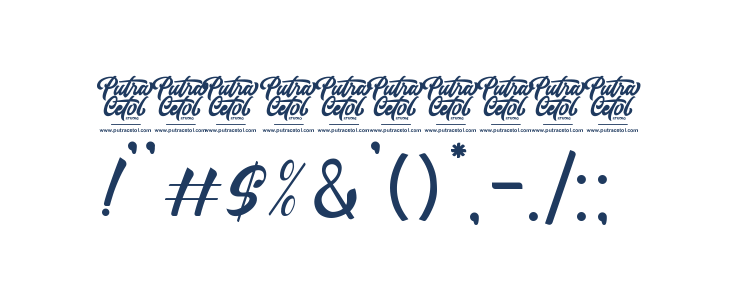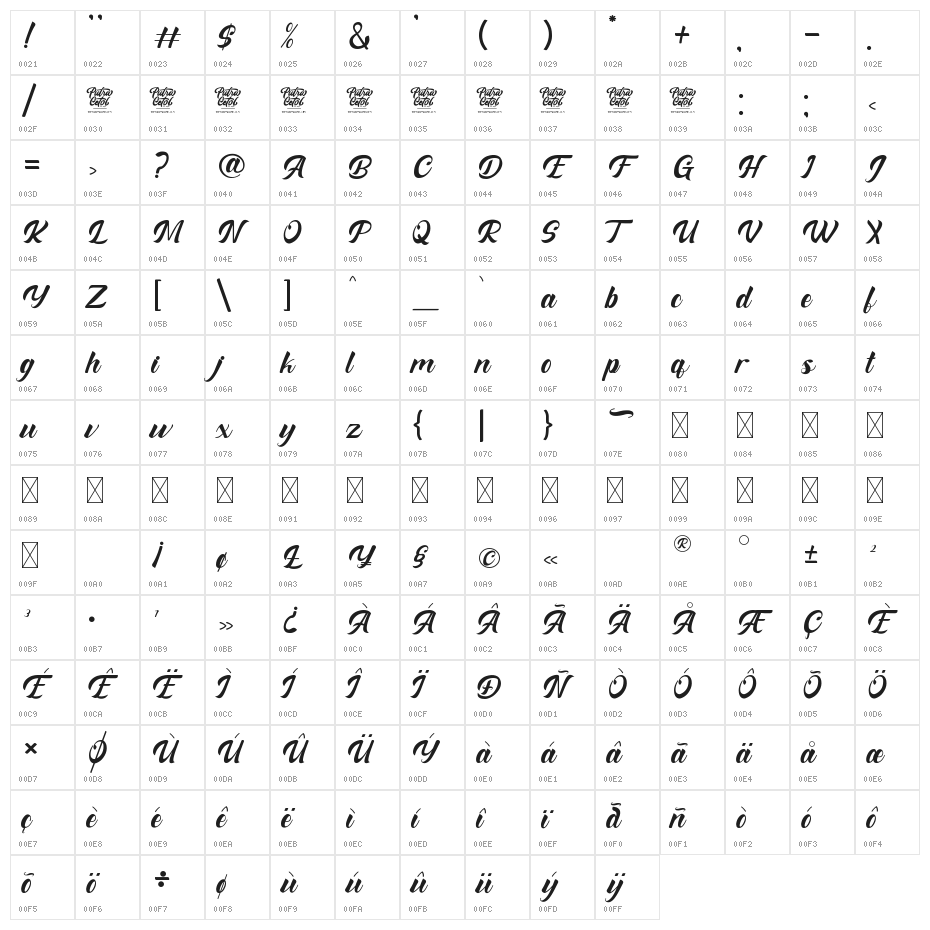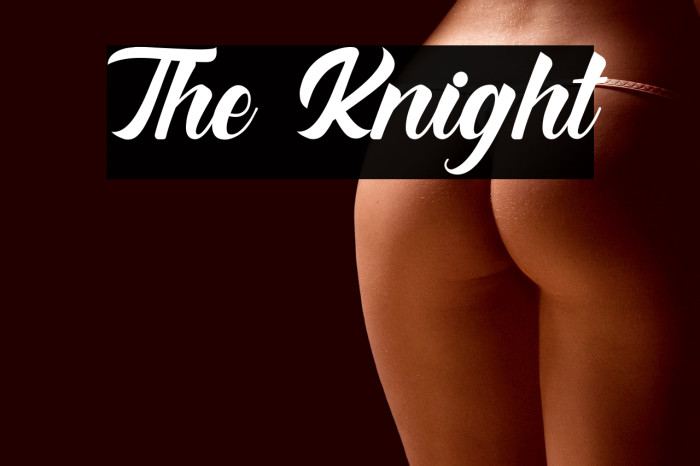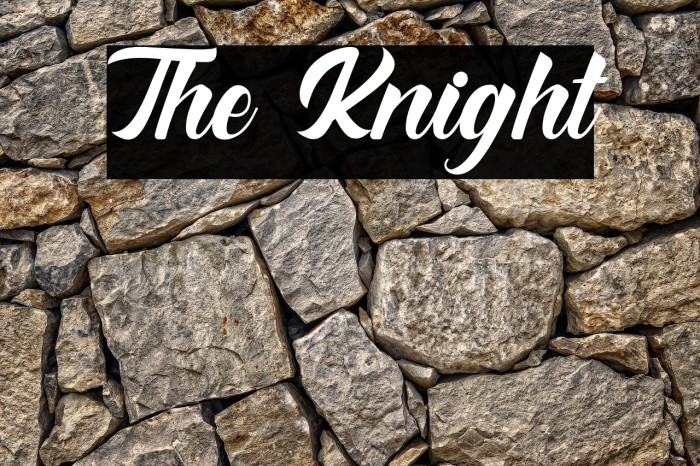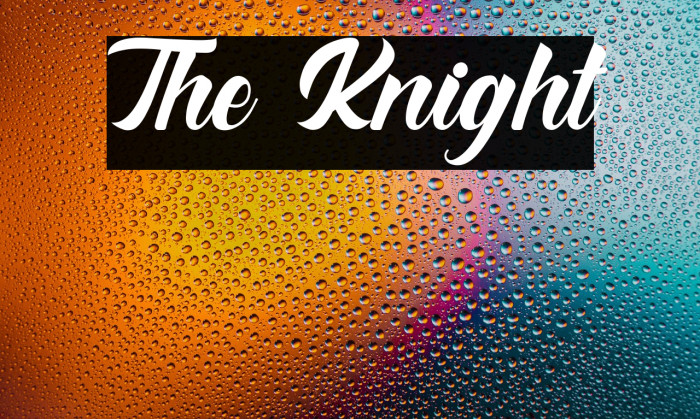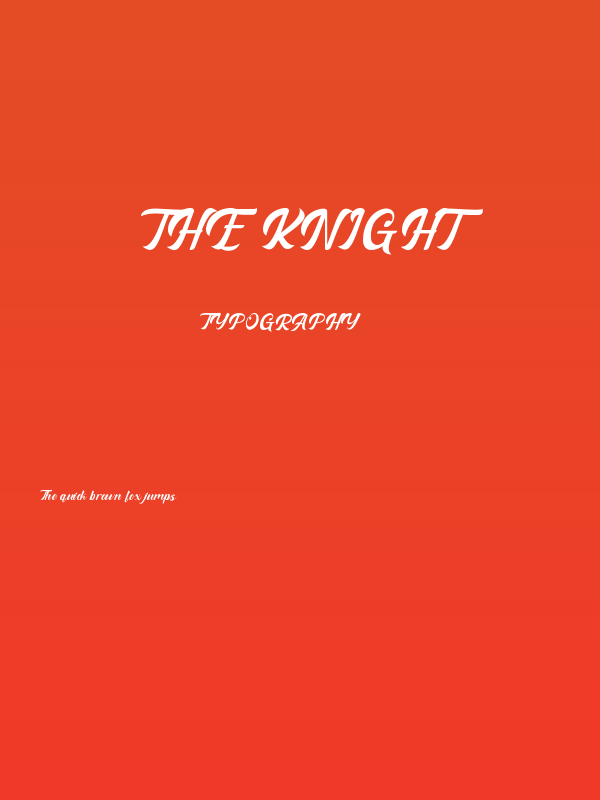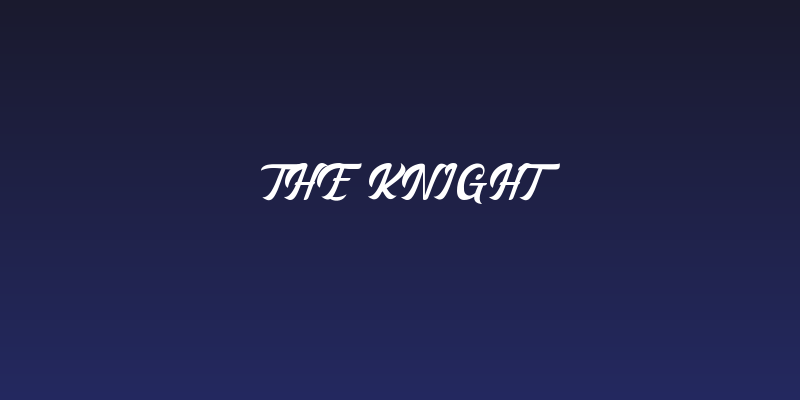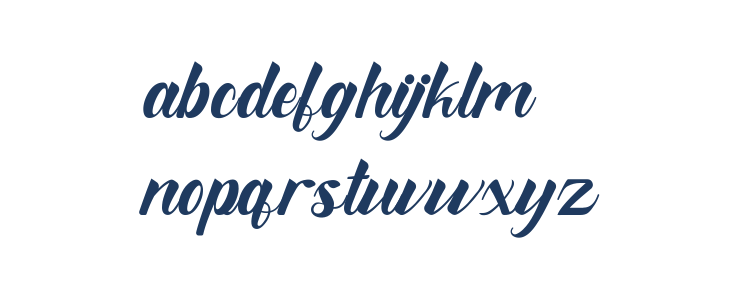
The Knight Font
The Knight Description
This font exhibits a bold, flowing script style that combines elegance with a touch of modern flair. The uppercase letters are characterized by sweeping curves and a sense of movement, while the lowercase letters maintain a consistent flow, enhancing readability. The font's design is reminiscent of traditional calligraphy, yet it incorporates contemporary elements that make it suitable for a variety of applications. The numerals and special characters are crafted with the same attention to detail, ensuring a cohesive look across all text. This font's unique style makes it ideal for projects that require a personal touch or a sense of sophistication.
| Use Case | Logos, Invitations, Branding |
| Proposed Projects | Ideal for wedding invitations, branding, logos, and elegant packaging designs. |